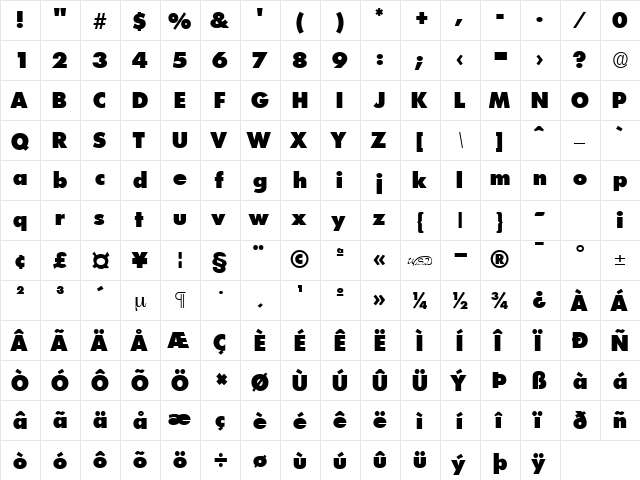
Futurist XtraHeavy Normal
Design Context for Futurist XtraHeavy Typeface
Futurist XtraHeavy channels digital-age aesthetics through its sharp, structured letterforms — ideal for brands that want to signal innovation.
Pro Tip: Use Futurist XtraHeavy in combination with a neutral sans for body text. Let it define the brand voice in headlines while keeping reading comfortable elsewhere.